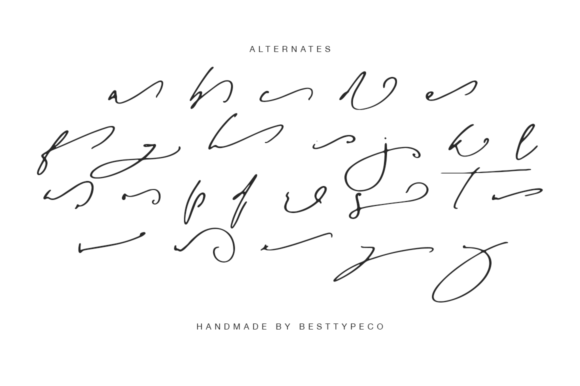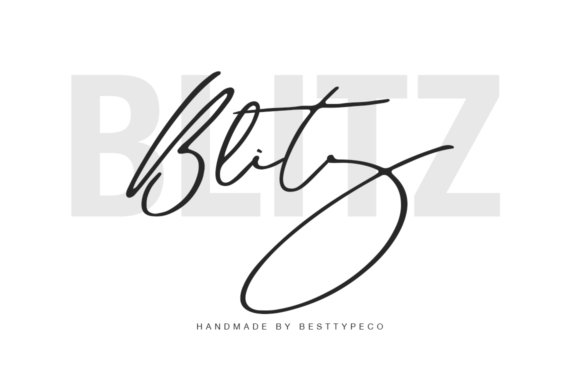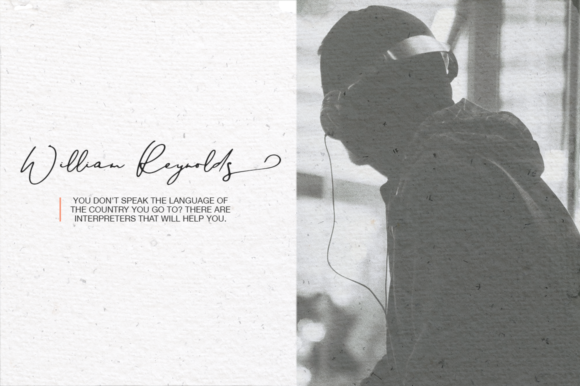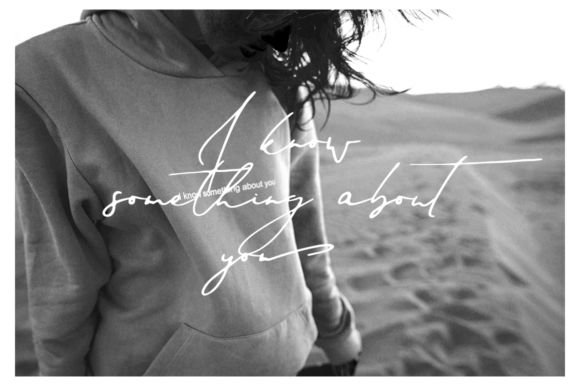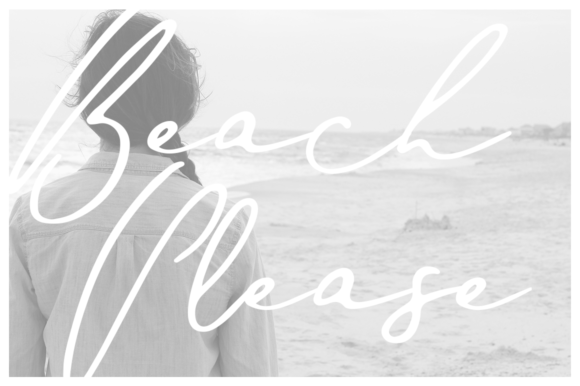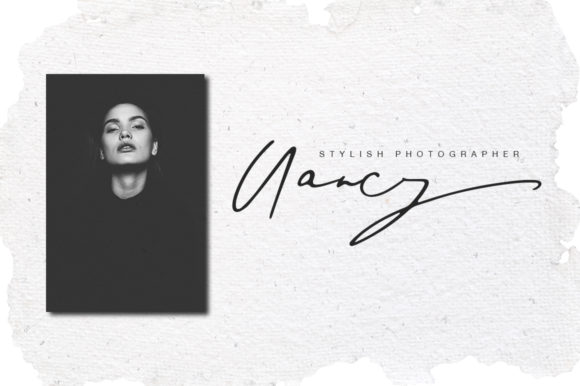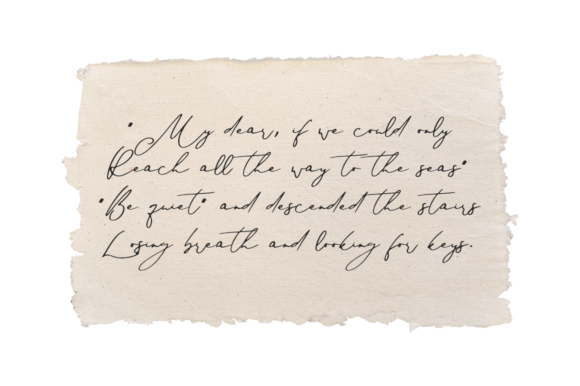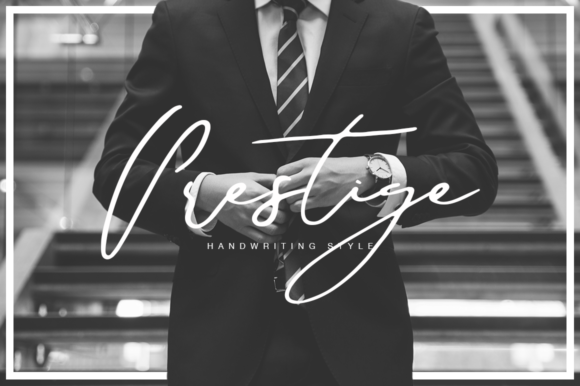
Foundation Font
About Foundation Font
The Foundation is a new fresh handmade calligraphy font with a beautiful natural writing style.
Very suitable for greeting cards, branding materials, business cards, quotes, posters, and more!